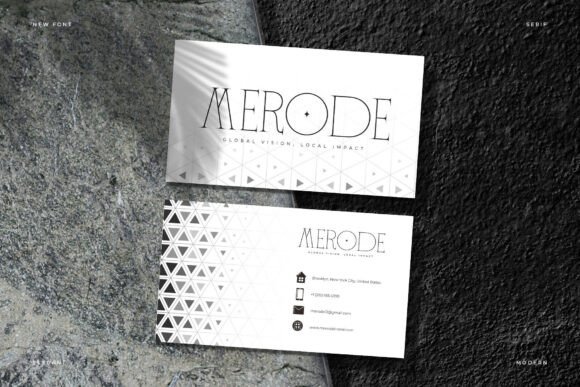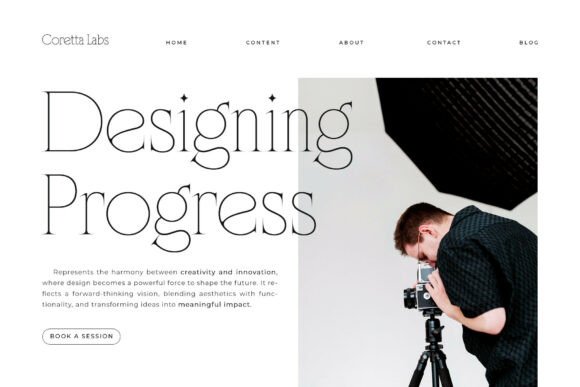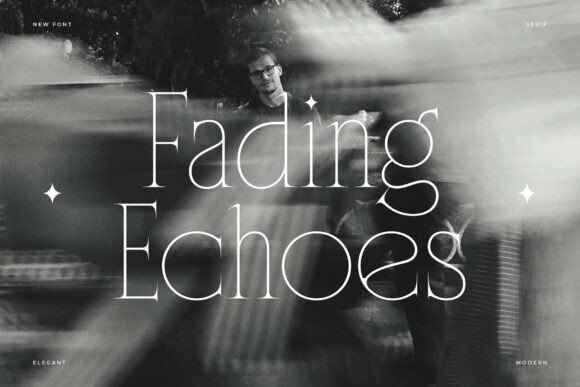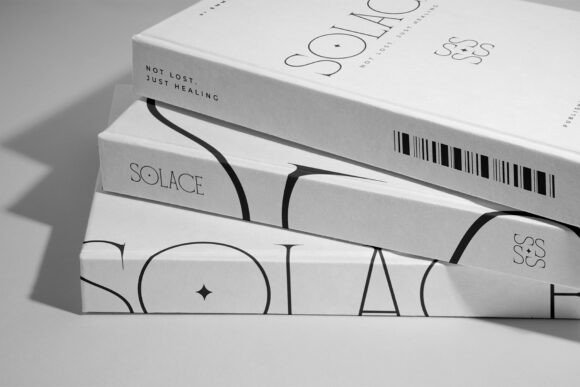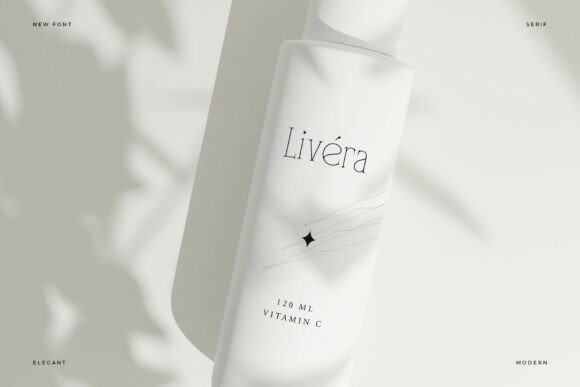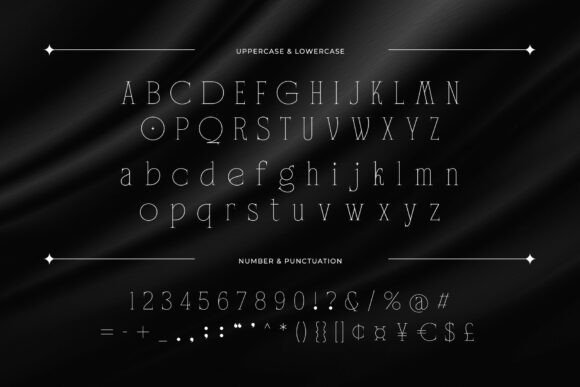
Introducing Float: The Elegant Display Serif Font for Sophisticated Designs
In the world of typography, fonts play a crucial role in conveying the tone and personality of a brand. For designers and crafters looking to elevate their creative projects, a well-crafted font can make all the difference. This is where Float comes in – an elegant display serif font that exudes sophistication and style. In this article, we’ll dive into the features and benefits of Float, and explore why it’s the perfect choice for modern brands and impactful headlines.
The Art of Refined Lines and Sharp Serifs
Float is a masterclass in typographic design, boasting refined lines, sharp serifs, and a luxurious presence. Its tall letterforms and minimal yet striking details make it a versatile font for upscale creative projects. The font’s elegant design ensures that it can be used in a variety of contexts, from high-end branding and advertising to editorial design and packaging.
Sophistication and Style for Modern Brands
In today’s competitive market, brands need to stand out from the crowd. Float provides the perfect solution, offering a sophisticated and stylish aesthetic that’s sure to turn heads. Its elegant design makes it an excellent choice for brands looking to convey a sense of luxury, refinement, and high-end quality. Whether you’re designing a logo, brochure, or website, Float is the perfect font to elevate your brand’s visual identity.
Impactful Headlines and Engaging Content
Float is not just a font – it’s a tool for creating impactful headlines and engaging content. Its sharp serifs and refined lines ensure that your text stands out, grabbing the attention of your audience and drawing them in. Whether you’re designing a billboard, magazine ad, or social media post, Float is the perfect choice for creating eye-catching headlines that demand attention.
Versatility and Flexibility
One of the key benefits of Float is its versatility. The font’s elegant design and minimal details make it suitable for a wide range of creative projects, from upscale branding and advertising to editorial design and packaging. Whether you’re working on a large-scale project or a small design task, Float is the perfect font to have in your toolkit.
Key Features of Float
• Elegant display serif font with refined lines and sharp serifs
• Luxurious presence and sophisticated aesthetic
• Tall letterforms and minimal yet striking details
• Versatile font suitable for upscale creative projects
• Perfect for modern brands and impactful headlines
In conclusion, Float is a game-changing font for designers and crafters looking to elevate their creative projects. Its elegant design, refined lines, and sharp serifs make it the perfect choice for modern brands and impactful headlines. With its versatility and flexibility, Float is sure to become a staple in your font library. So why wait? Discover the power of Float and take your designs to the next level.